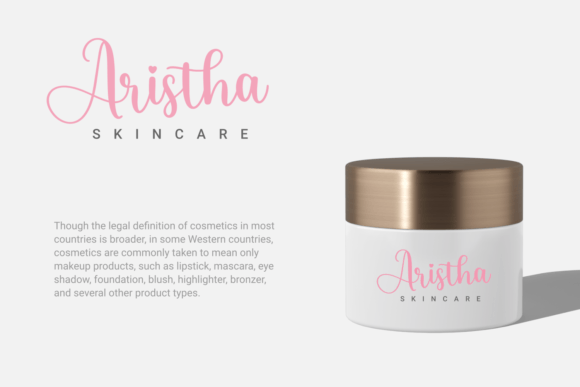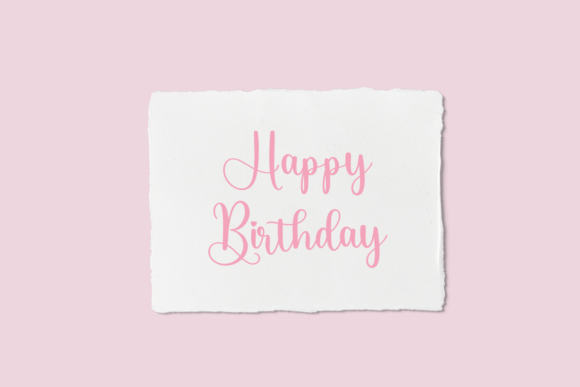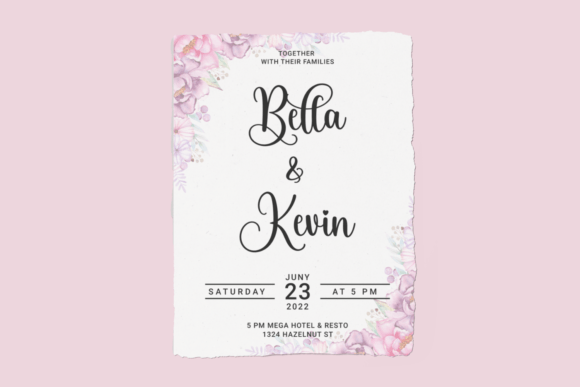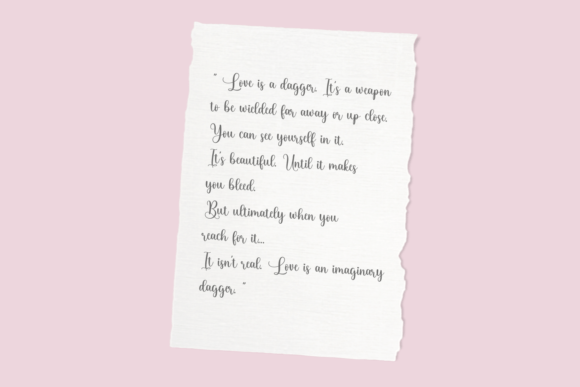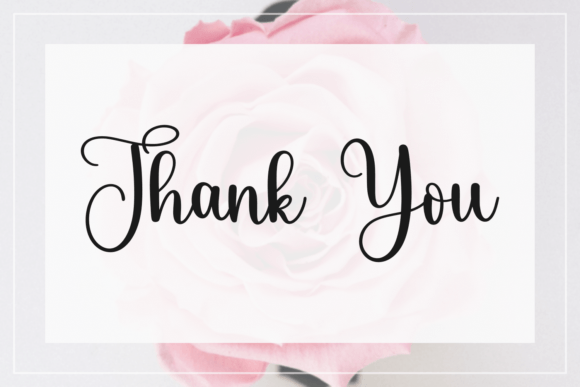
Introducing Gilla Font: Elevate Your Designs with Modern Calligraphy
In the world of design, fonts play a crucial role in conveying the message and aesthetic of a project. For designers and crafters looking to add a touch of elegance and sophistication to their work, the Gilla Font is an excellent choice. This modern calligraphy font is designed to make your designs stand out with its lovely swashes and alternates.
What is Gilla Font?
Gilla Font is a beautifully crafted modern calligraphy font that is perfect for a wide range of design applications. Whether you’re working on logos, labels, branding, invitations, websites, quotes, or more, this font is sure to boost your designs and make them a true standout. With its elegant swashes and alternates, Gilla Font adds a touch of sophistication and style to any project.
Key Features of Gilla Font
- Modern Calligraphy Style: Gilla Font boasts a modern calligraphy style that is both elegant and trendy.
- Lovely Swashes and Alternates: The font comes with a range of lovely swashes and alternates, allowing you to add a personal touch to your designs.
- Versatile: This font is perfect for a wide range of design applications, including logos, labels, branding, invitations, websites, quotes, and more.
Benefits of Using Gilla Font
So, why should you choose Gilla Font for your next design project? Here are just a few benefits of using this amazing font:
- Elegance and Sophistication: Gilla Font adds a touch of elegance and sophistication to any design project.
- Customization: With its range of swashes and alternates, you can customize your designs to make them truly unique.
- Time-Saving: With Gilla Font, you can create stunning designs in no time, saving you time and effort.
Design Applications for Gilla Font
Gilla Font is a versatile font that can be used for a wide range of design applications, including:
- Logos: Create stunning logos that make your brand stand out.
- Labels: Design beautiful labels that add a touch of elegance to your products.
- Branding: Use Gilla Font to create a consistent brand image across all your marketing materials.
- Invitations: Create stunning invitations that set the tone for your event.
- Websites: Use Gilla Font to add a touch of elegance to your website.
- Quotes: Design beautiful quotes that inspire and motivate.
Tips for Using Gilla Font
Here are a few tips for using Gilla Font to get the most out of this amazing font:
- Experiment with Swashes: Don’t be afraid to experiment with different swashes and alternates to find the perfect combination for your design.
- Pair with Other Fonts: Try pairing Gilla Font with other fonts to create a unique and interesting design.
- Use on Different Backgrounds: Experiment with using Gilla Font on different backgrounds to find the perfect contrast.
In conclusion, Gilla Font is a modern calligraphy font that is perfect for designers and crafters looking to add a touch of elegance and sophistication to their work. With its lovely swashes and alternates, PUA encoding, and versatility, this font is sure to boost your designs and make them a true standout. Whether you’re working on logos, labels, branding, invitations, websites, quotes, or more, Gilla Font is an excellent choice.